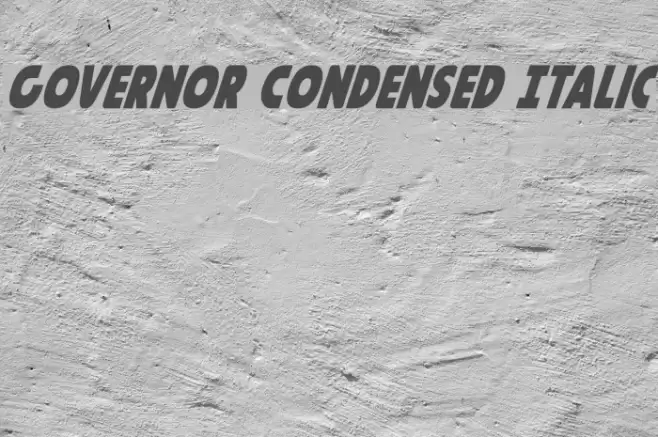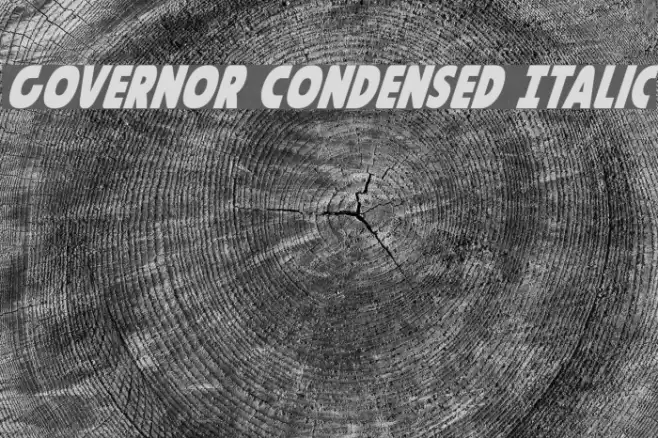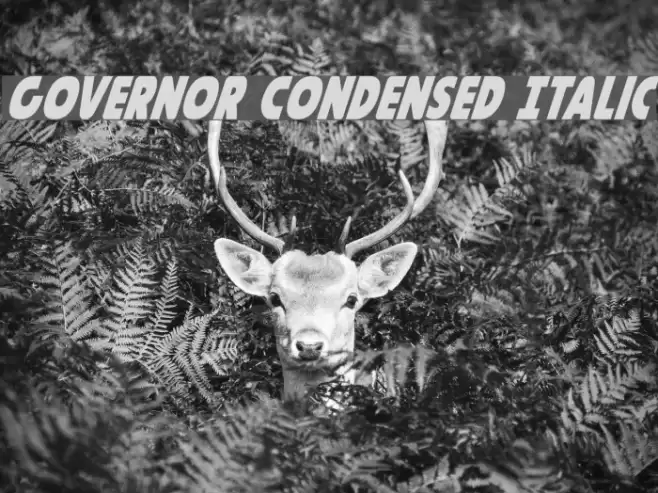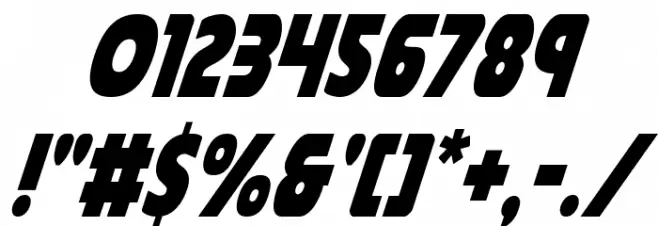
Governor Condensed Italic Font
Governor Condensed Italic Description
This font features a bold and dynamic style with a condensed width and italic slant, giving it a sense of motion and energy. The uppercase letters are robust and impactful, while the lowercase letters maintain a consistent flow. The numerals are clear and bold, ensuring readability. Special characters are well-integrated, maintaining the overall aesthetic. The font's strong presence makes it suitable for attention-grabbing designs. Its condensed form allows for efficient use of space, making it ideal for headlines and titles where space is limited but impact is necessary.
A bold, condensed, and italic font with a dynamic and energetic style from Sci-fi fonts.
- Proposed Projects: Ideal for sports branding, dynamic posters, attention-grabbing headlines, and modern advertising campaigns.